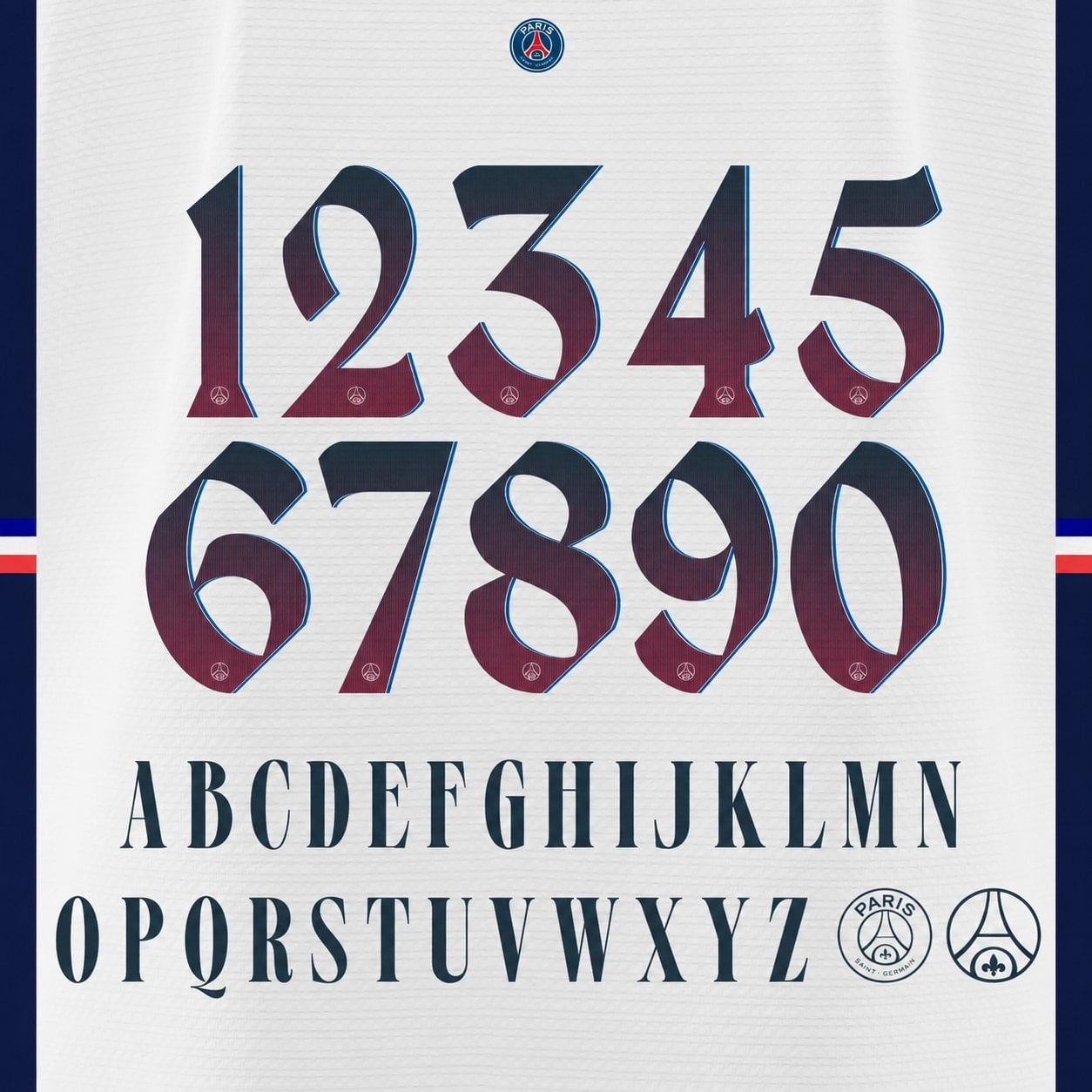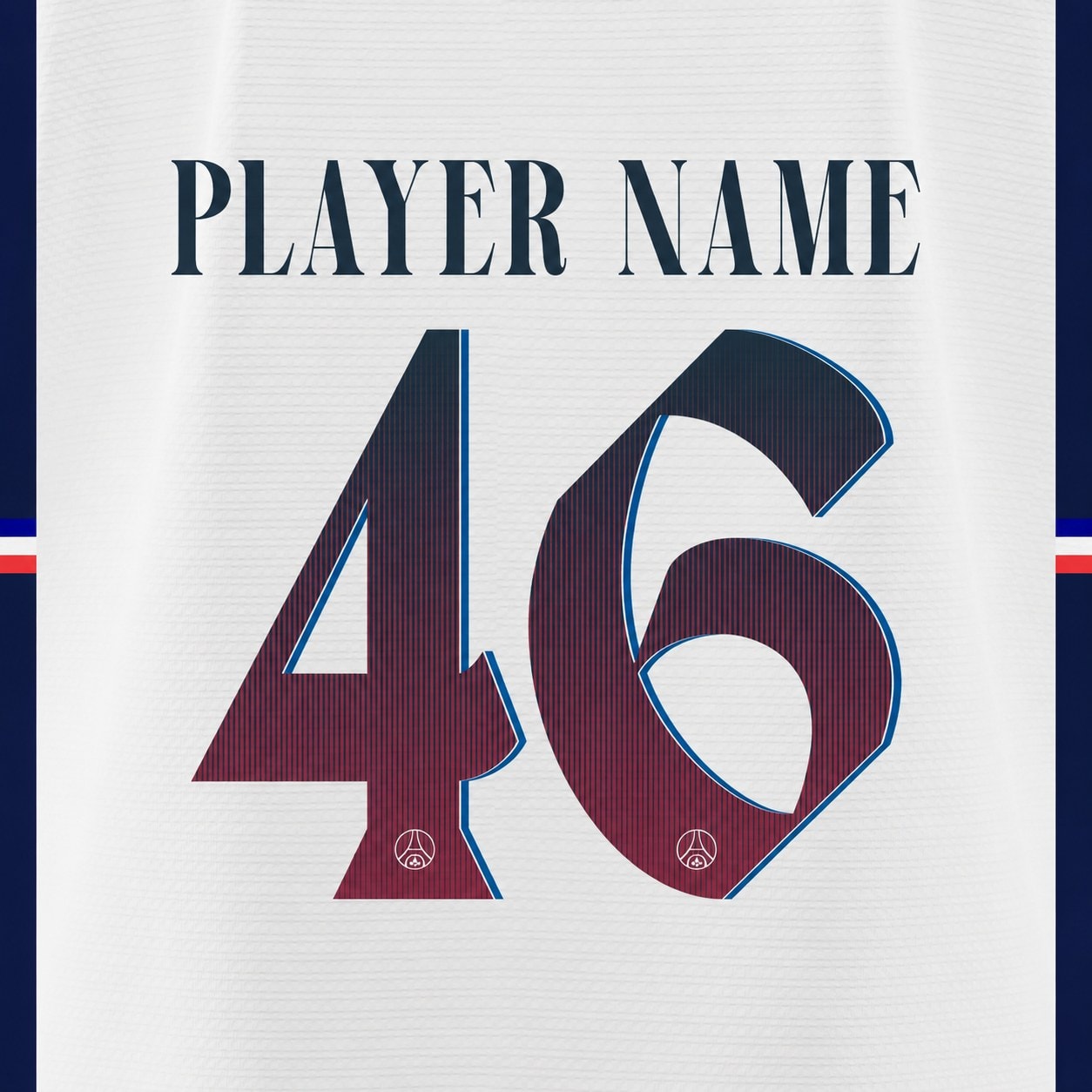
Complete PSG 2026/27 away font set — every letter and every number in one kit, in this season’s away lettering style, navy-to-burgundy gradient colourway as shown.
- Full set included: all letters A–Z + all numbers 0–9, exactly as shown
- Fine crest detailing inside the numbers